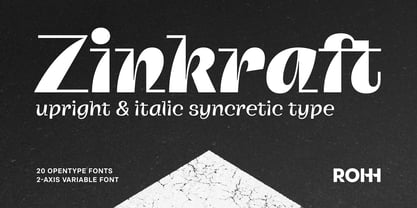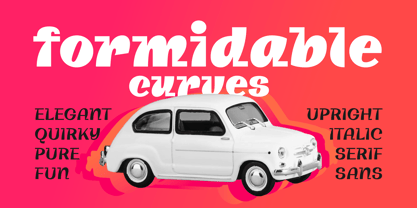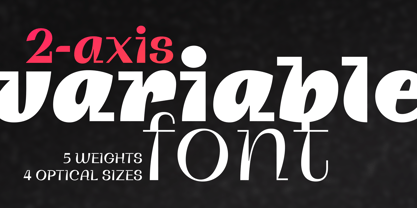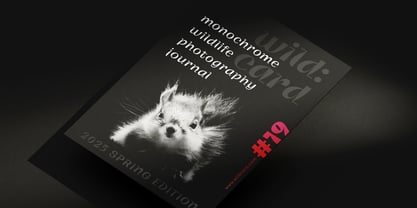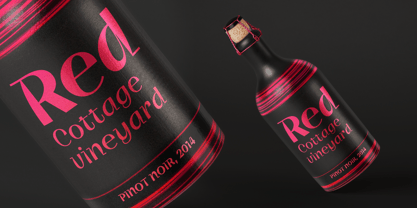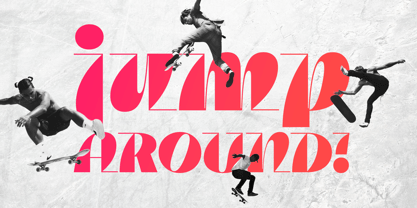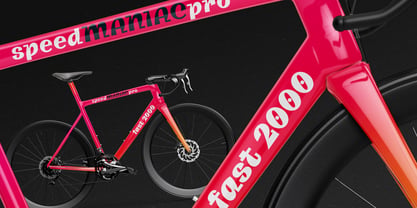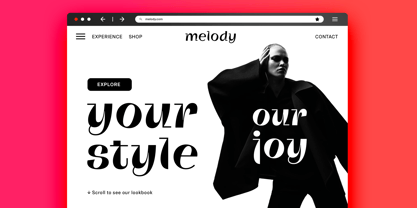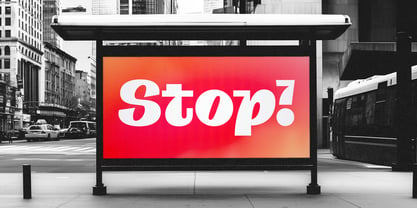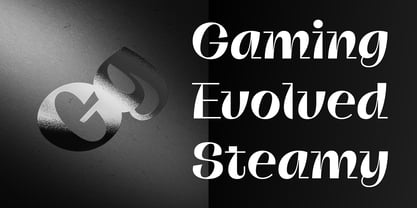
Zinkraft
Die Schriftfamilie Zinkraft wurde von Roch Modrzejewski entworfen und von ROHH veröffentlicht. Zinkraft enthält 21 Stile und Familienpaketoptionen. Mehr über diese Familie
Zinkraft™ embodies syncretic design — a seamless fusion of opposites that shouldn’t work, but absolutely do. Upright and italic, serif and sans, bold and offbeat, it’s a walking contradiction that somehow makes perfect sense. Made for logotypes and fearless design.
A futuristic fashion brand? A title sequence for a dystopian indie game? A cover for a high-concept lifestyle magazine? From sports apparel to experimental art projects, from sci-fi menus to food packaging, Zinkraft feels equally at home in glossy fashion editorials and rebellious youth campaigns.
This versatile, stand-out, genre-bending display typeface comes in a wide array of weights and 4 optical sizes that allow it to adapt to various design scenarios.
Key Features
• 20 styles (5 weights in 4 optical sizes)
• 2-axis variable font
• 600+ playful glyphs
• Extended Latin language support
• S T Y L E !